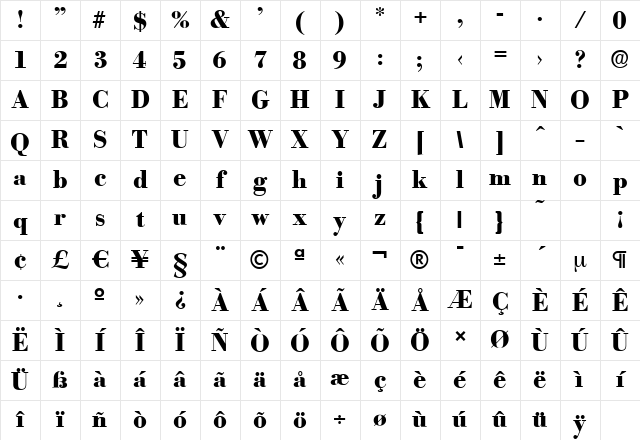
BodoniSerial-Xbold Regular
Foundry: SoftMaker Software GmbH
Designer: SoftMaker Software GmbH
Design Context for BodoniSerial-Xbold
BodoniSerial-Xbold is a composed and adaptable typeface that performs quietly and consistently across a wide range of design contexts. Its bold stroke weight gives it real presence on the page.
Pro Tip: Use BodoniSerial-Xbold in both headline and body roles to test its range before committing to a single application.